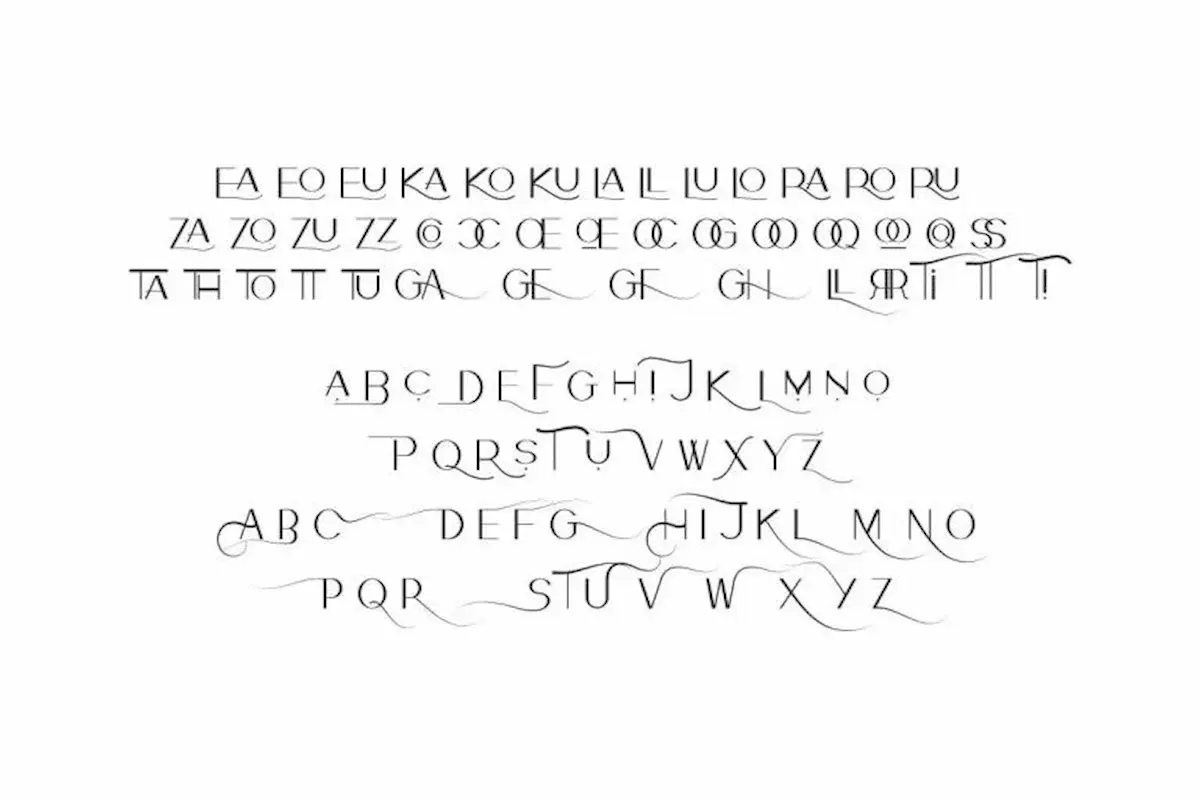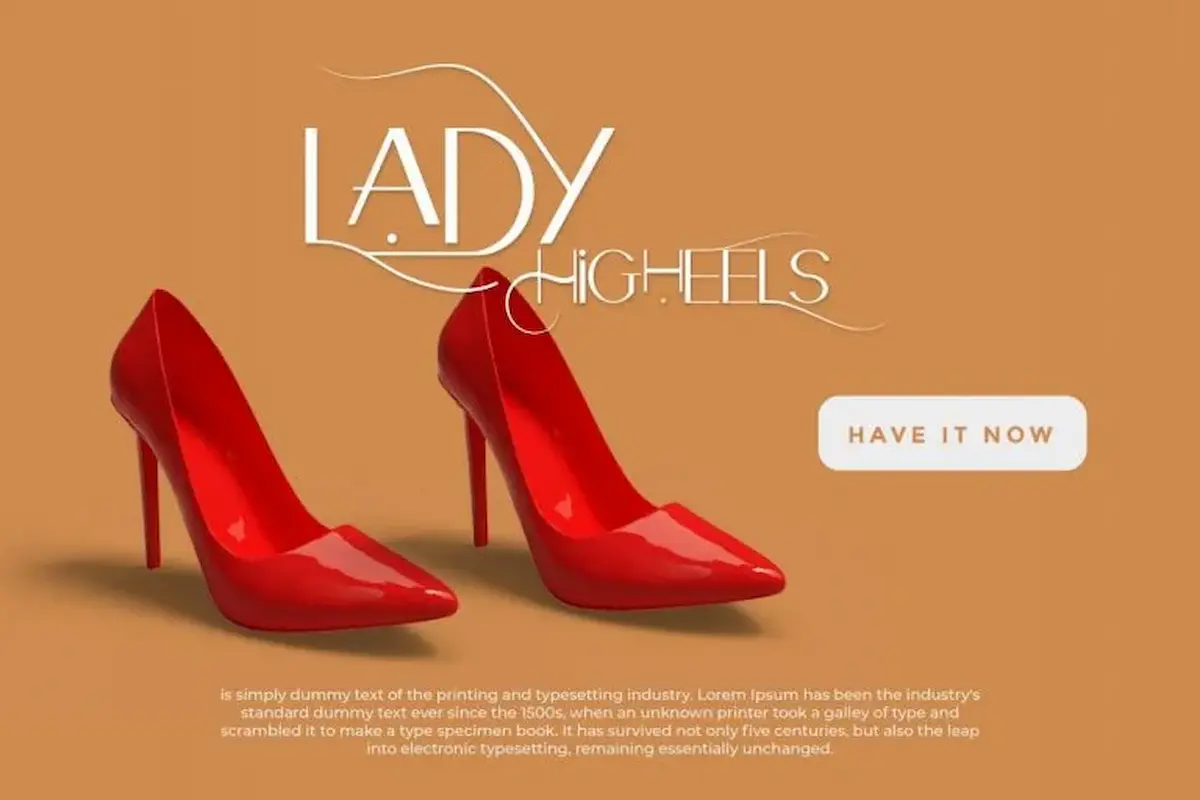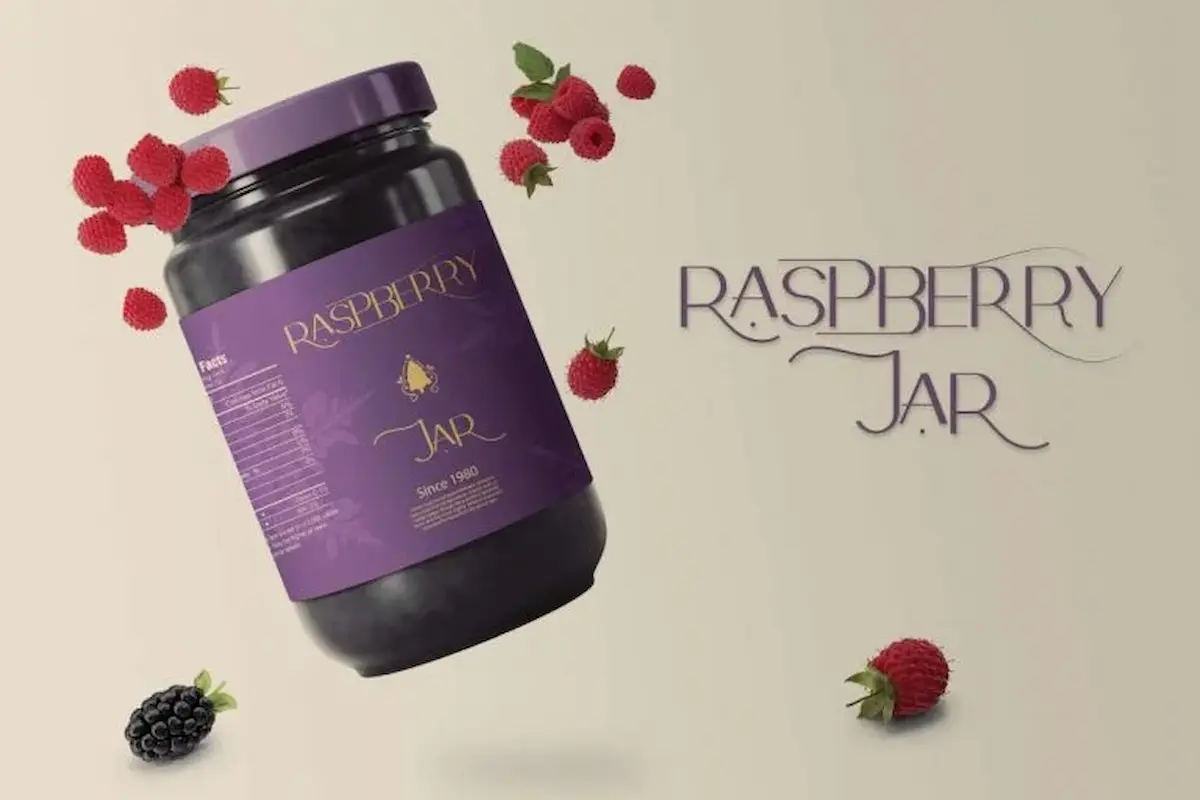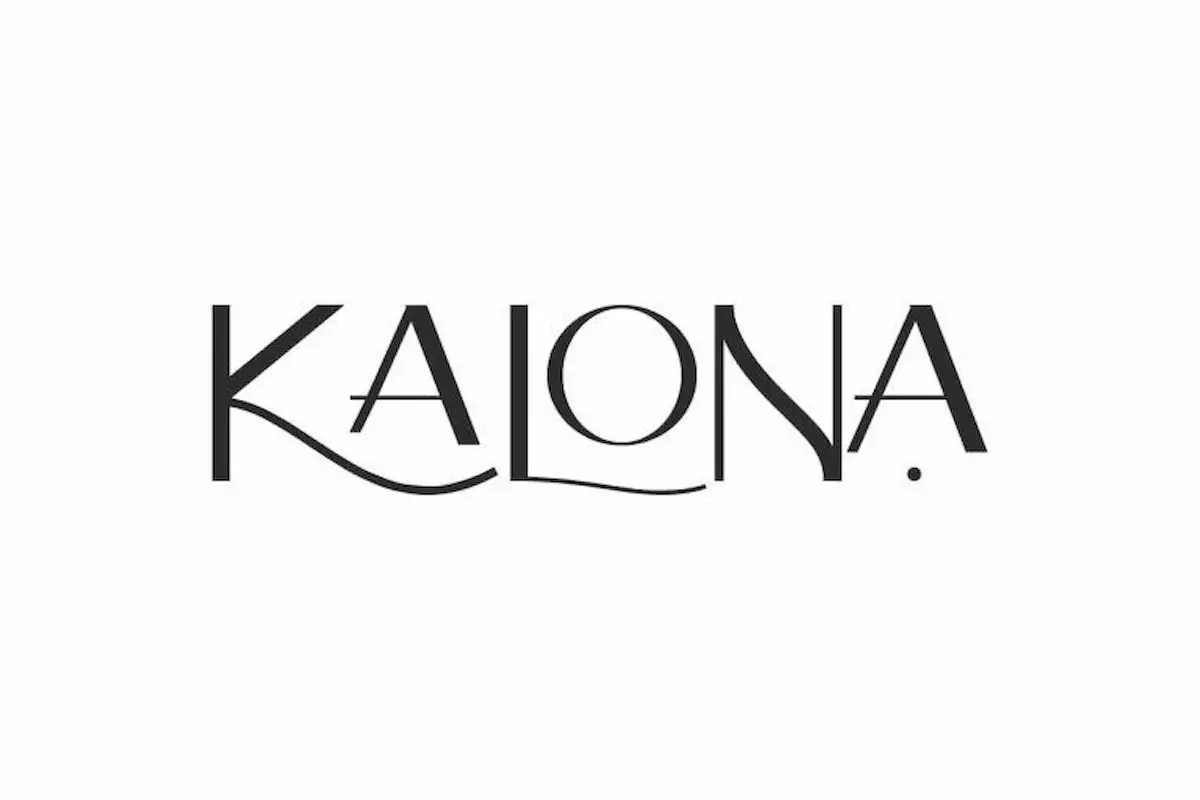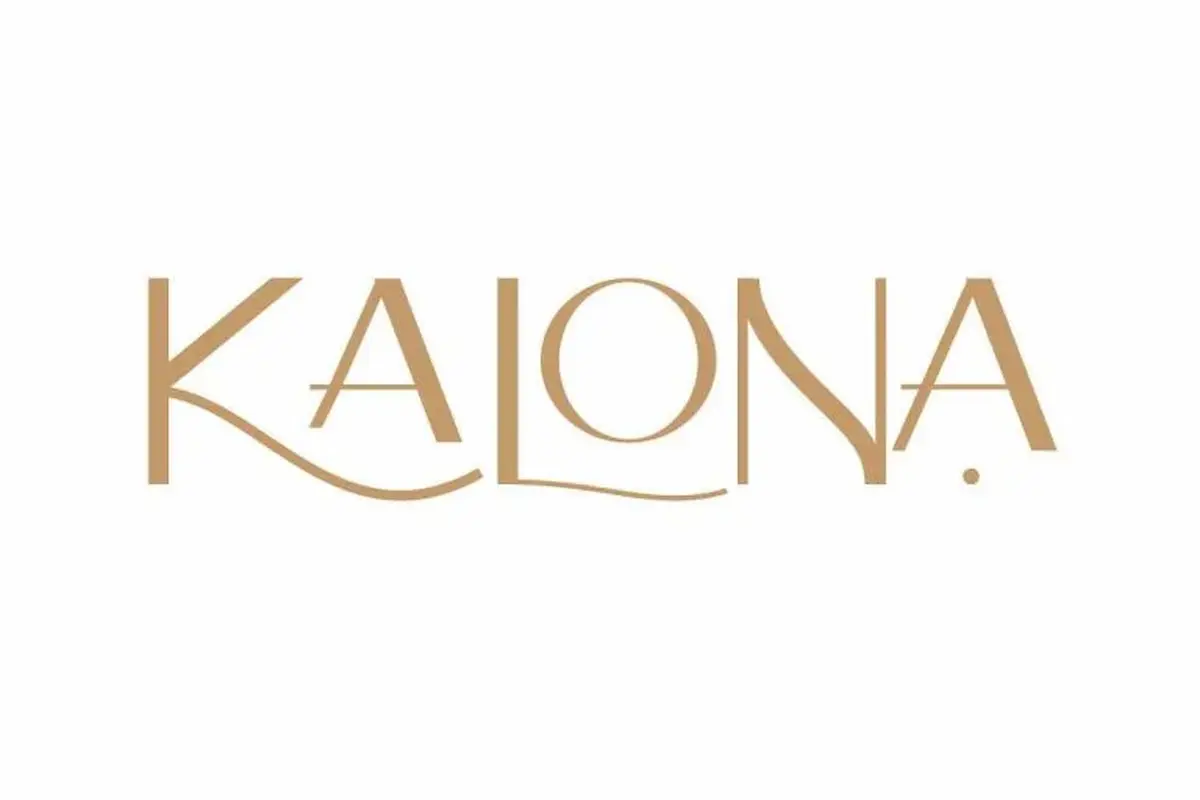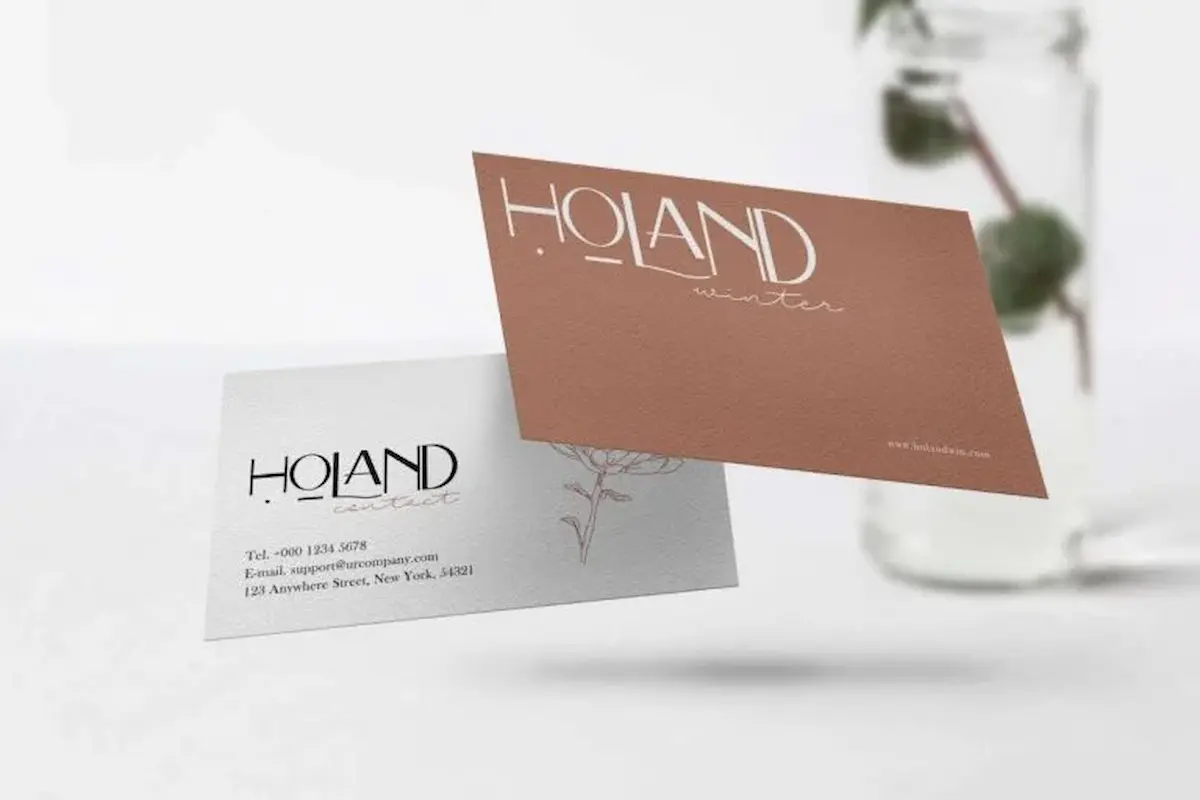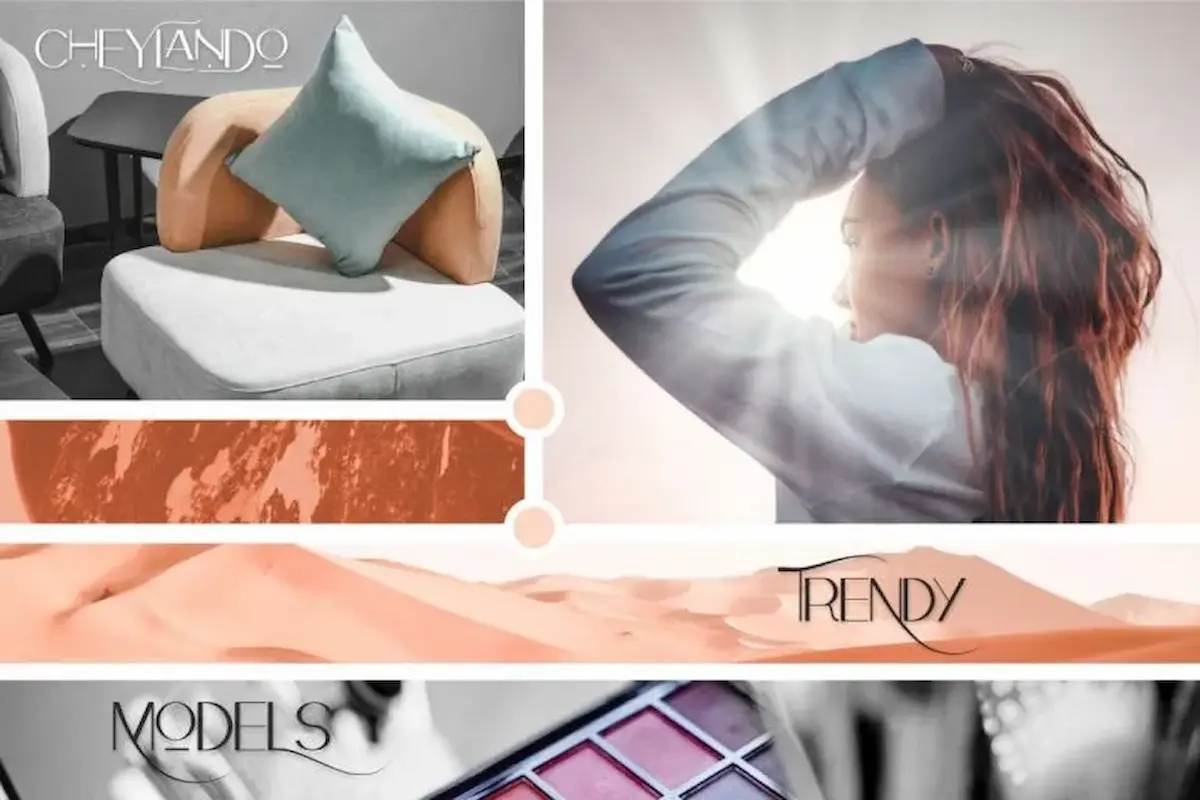
Kalona Font
Kalona Font is a minimalist modern display font by NihStudio, made in 2021. Kalona Casual Font will great for many industries : magazine, fashion, cosmetic, wedding, florist, or vintage projects.
Handcrafted here in our Studio , Indonesia. Kalona Modern Font will be great for any projects (require extended license) including : branding, logo, stationery, business card, signage, flyer, brochure etc. Kalona Font comes with many alternative characters and ligatures to make it flowless and stunning. Kalona will be great for many business and industries including cosmetic, beauty, education, wedding, finance, fashion, houseware etc